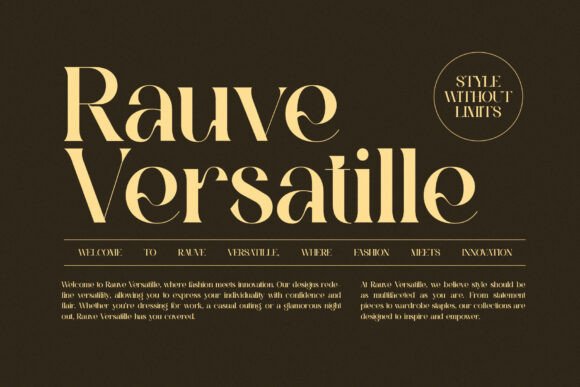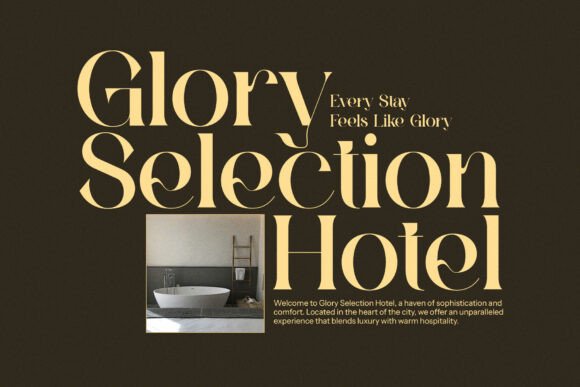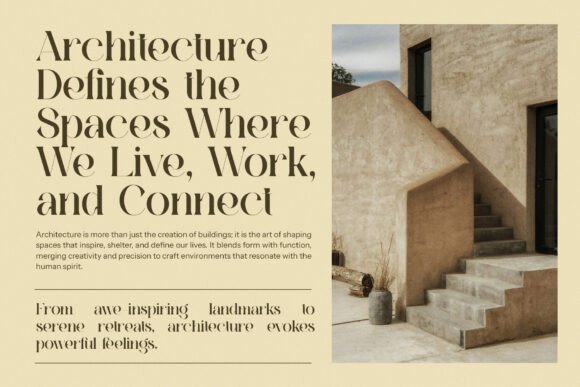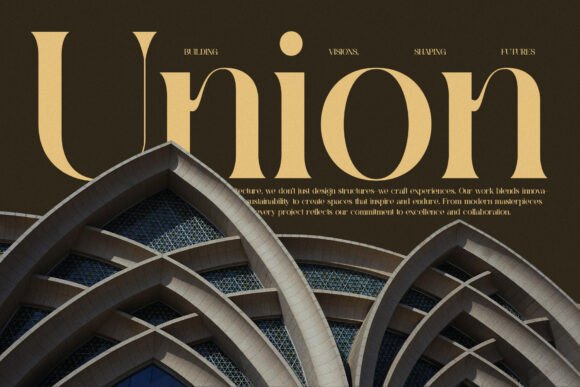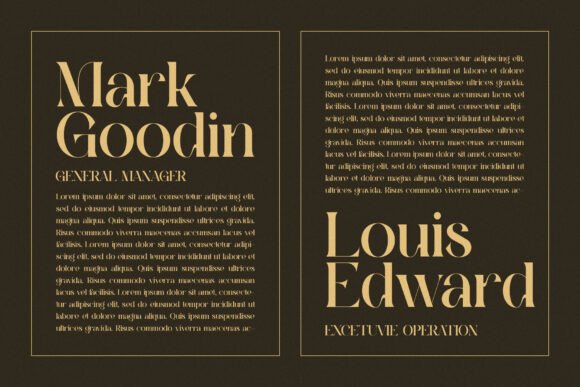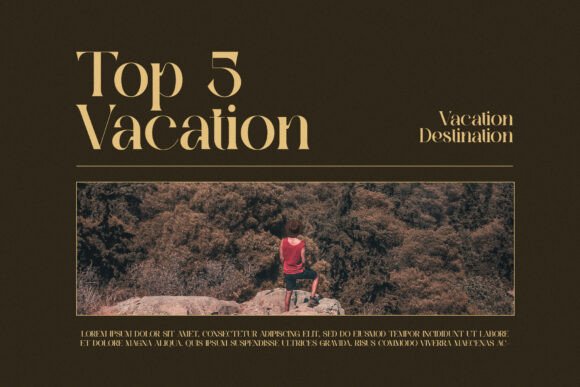
Introduction to Magins Font
Magins is a beautifully crafted typeface that combines vintage charm with timeless elegance.
With its classic serif design and unique character details, Magins evokes a sense of nostalgia while maintaining a refined and sophisticated appearance Its vintage aesthetic makes it the perfect choice for projects that require a touch of history and heritage, yet still demand a modern, polished look.
Key Features of Magins Font
Why Choose Magins Font?
Magins Font offers exceptional quality and versatility, making it a valuable addition to your design toolkit. Whether you’re creating for personal projects or commercial use, Magins Font delivers professional results.